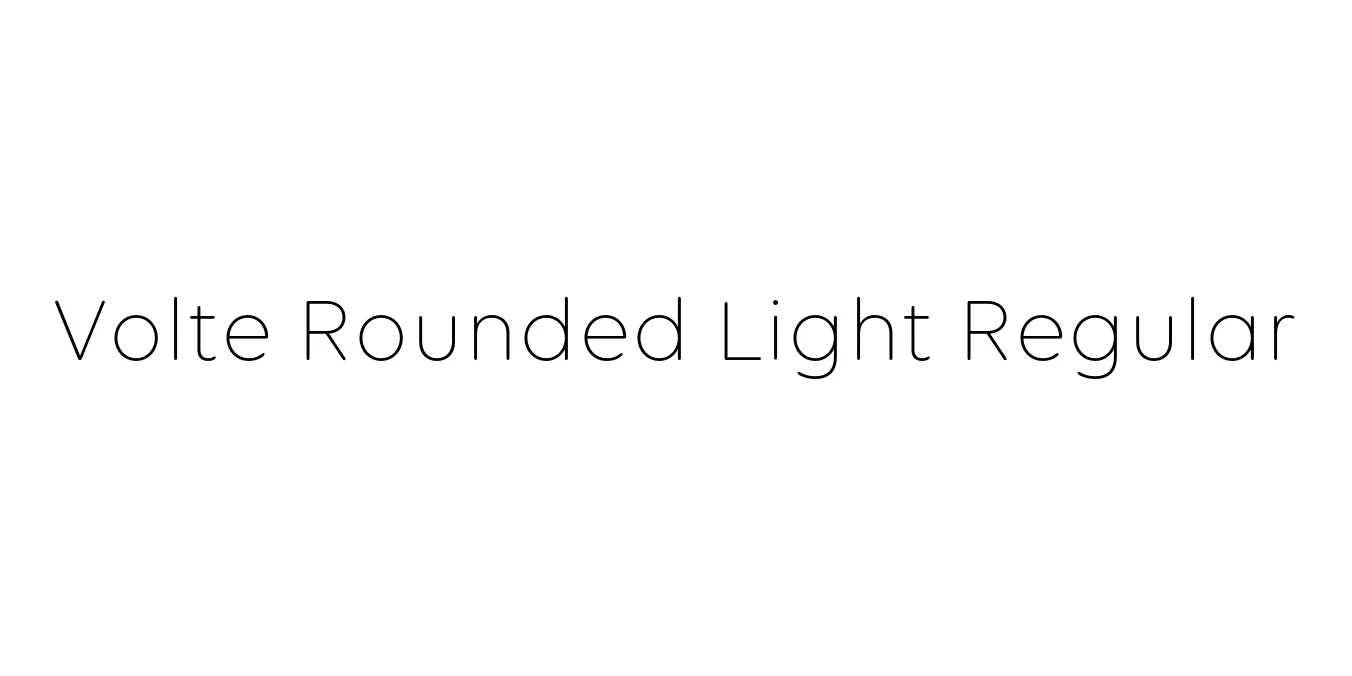
Volte Rounded Light Regular
Designed by Namrata Goyal
Volte Rounded is a geometric sans-serif typeface designed by Namrata Goyal and published by the Indian Type Foundry (ITF). This typeface is a rounded version of the original Volte family, specifically engineered to balance industrial precision with a friendly, approachable personality. The Light Regular weight offers a sophisticated and airy aesthetic, characterized by its perfectly circular curves and uniform stroke widths that provide a sense of modern clarity.
The design of Volte Rounded features low contrast and wide open counters, which significantly enhance legibility at smaller sizes and on digital screens. Its structural foundation is rooted in geometric forms, making it highly versatile for contemporary branding, mobile application interfaces, and technical documentation. By softening the sharp edges of the original design, Volte Rounded Light Regular bridges the gap between mechanical accuracy and organic warmth.
Volte Rounded Light Regular Best Uses
Excellent for creating clean and friendly user interfaces.
Perfect for modern, approachable brand identities.
Delivers a light and airy feel for contemporary websites.
Provides clarity and a professional industrial look.